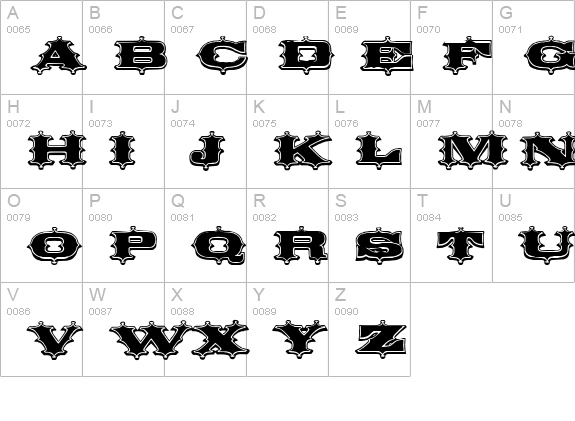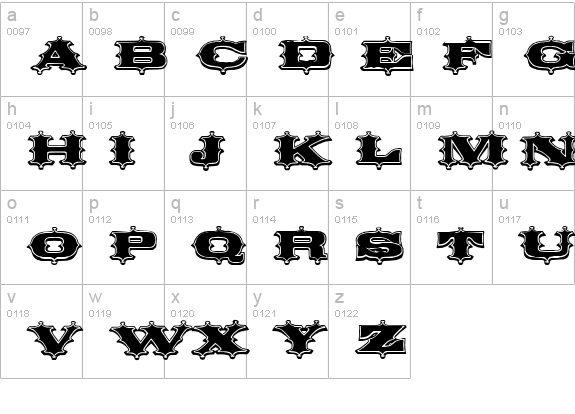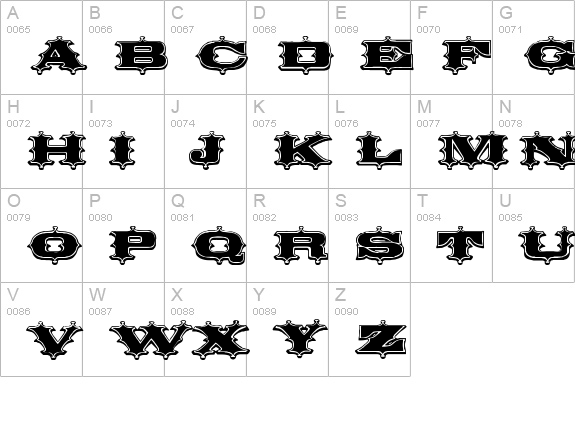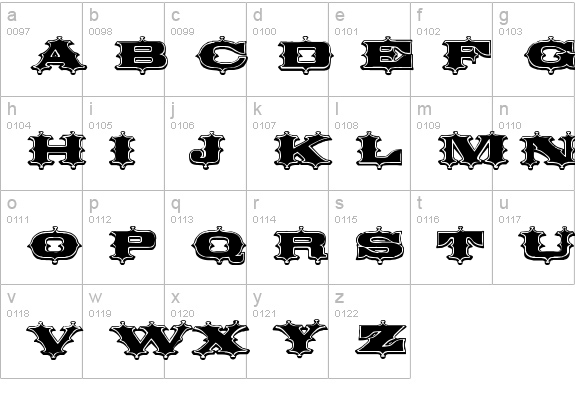
Circus Ornate font is a captivating and mesmerizing typeface that brings the enchantment of the circus to life. Its ornate and intricate design elements exude a sense of grandeur and elegance, making it the perfect choice for projects that require a touch of theatricality and spectacle. With its graceful curves and elaborate flourishes, Circus Ornate font adds a touch of whimsy and charm to any design. Whether you're creating an eye-catching poster, a playful logo, or a captivating invitation, this font is sure to captivate your audience and leave a lasting impression. What makes Circus Ornate font even more appealing is the fact that it is available for free. Yes, you heard it right. This stunning font can be freely downloaded at FontsMarket.com. Now, you can add a touch of magic to your designs without breaking the bank. So, why wait? Download Circus Ornate font today and let your creativity take center stage. Whether you're a professional designer or an amateur enthusiast, this font is sure to inspire and delight. Get ready to dazzle your audience with the enchanting beauty of Circus Ornate font.